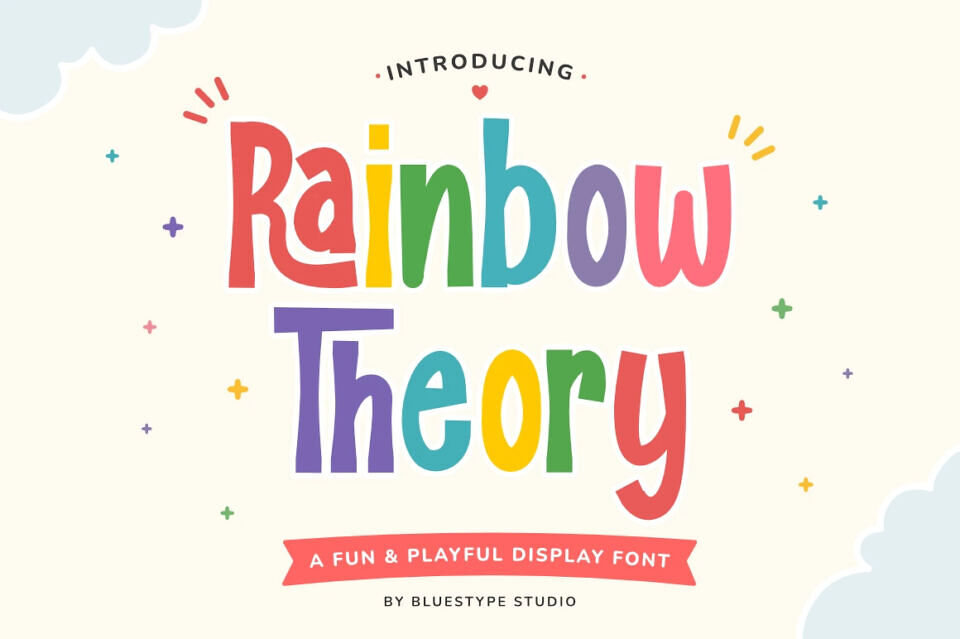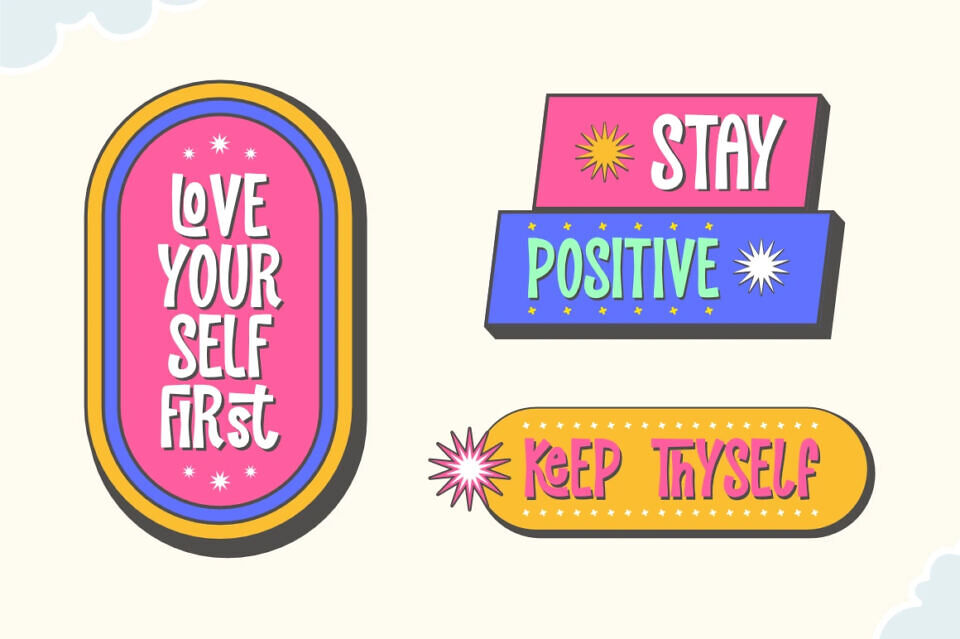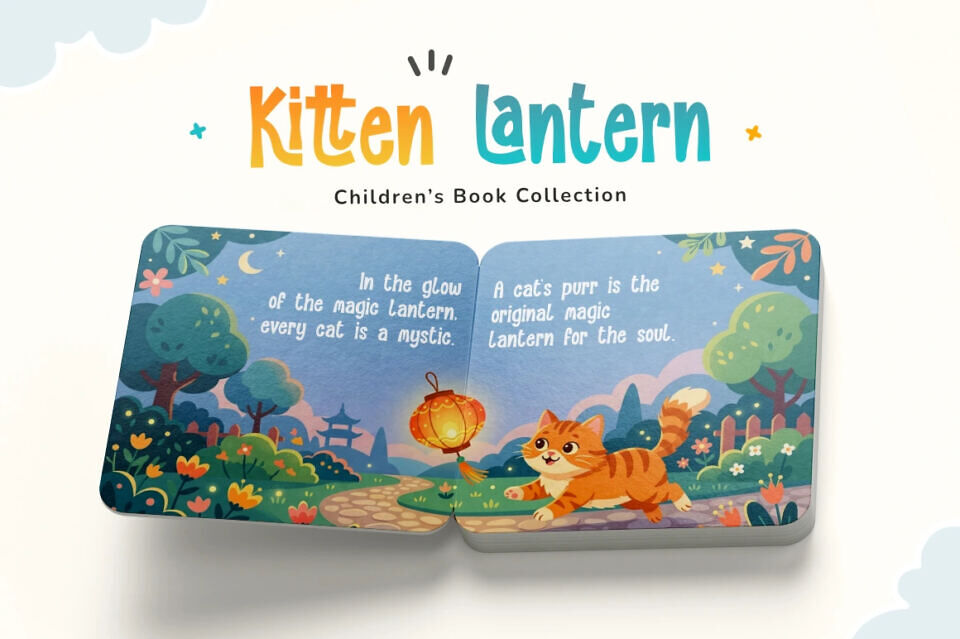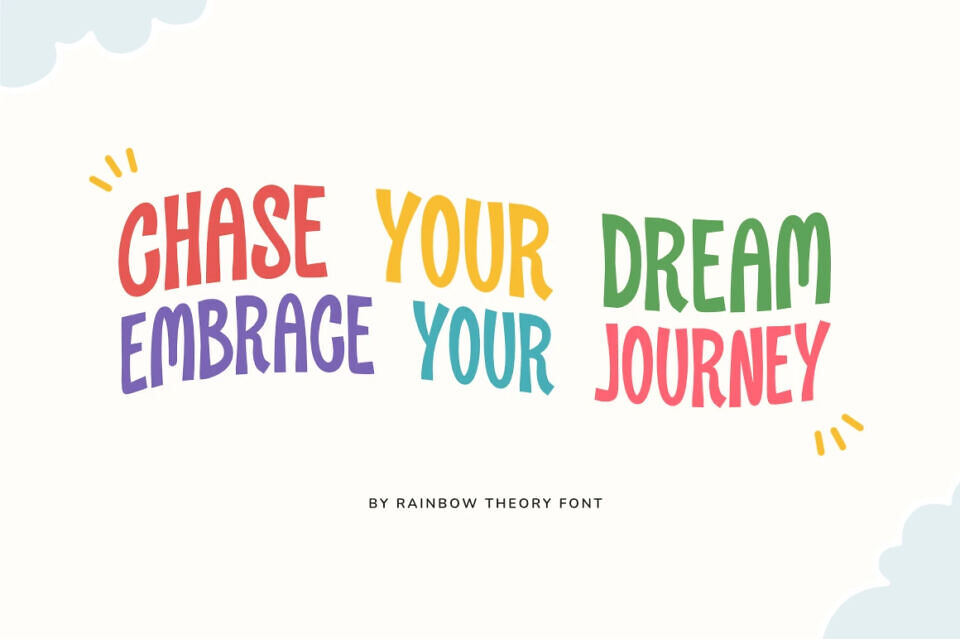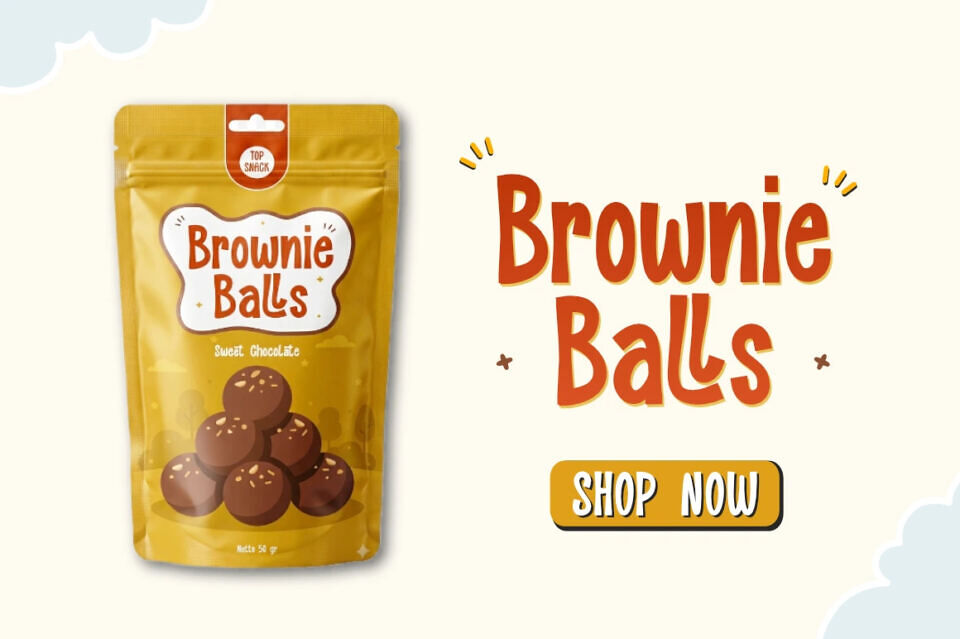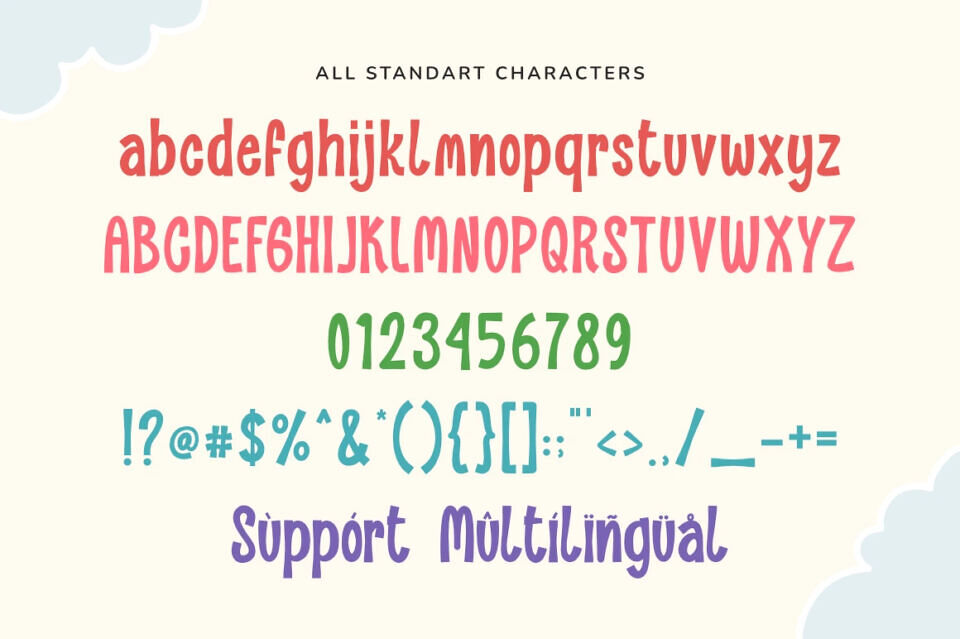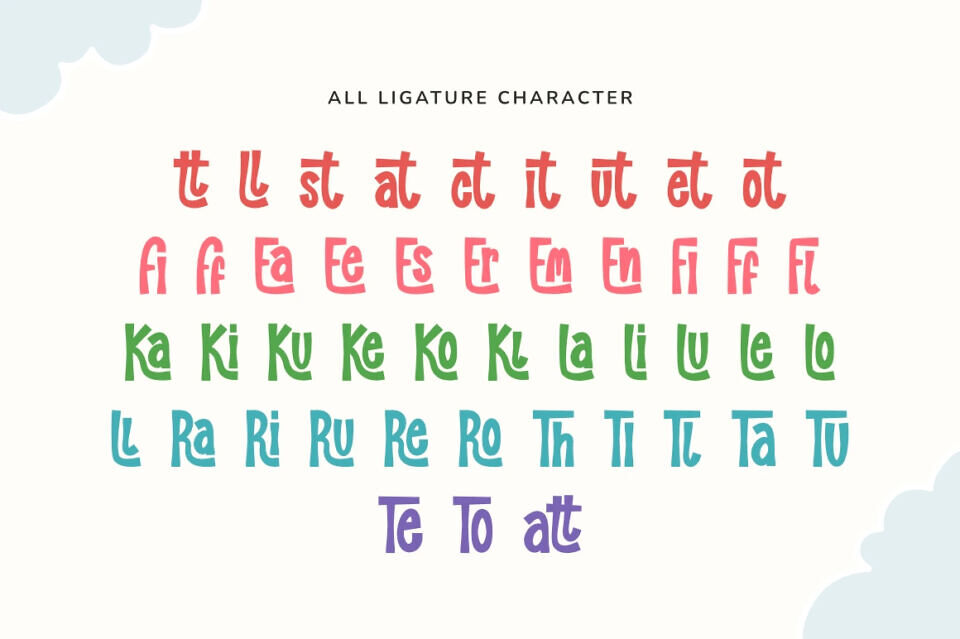
Rainbow Theory Font
Meet Rainbow Theory, a vibrant and playful display font designed to bring modern energy to your creative projects. Striking the perfect balance between fun, whimsical charms and sleek, contemporary aesthetics, Rainbow Theory is engineered for today’s trendsetting design landscape. Whether you are aiming for a bold millennial look or a youthful, high-energy vibe, this font adapts effortlessly to current visual trends.
Rainbow Theory is specifically designed for high-energy branding, eye-catching product packaging, and social media post, Thanks to its rich collection of unique ligatures, it is perfect for crafting custom-feeling logos, striking book covers, and trendy merchandise like apparel, stickers, and tote bags.